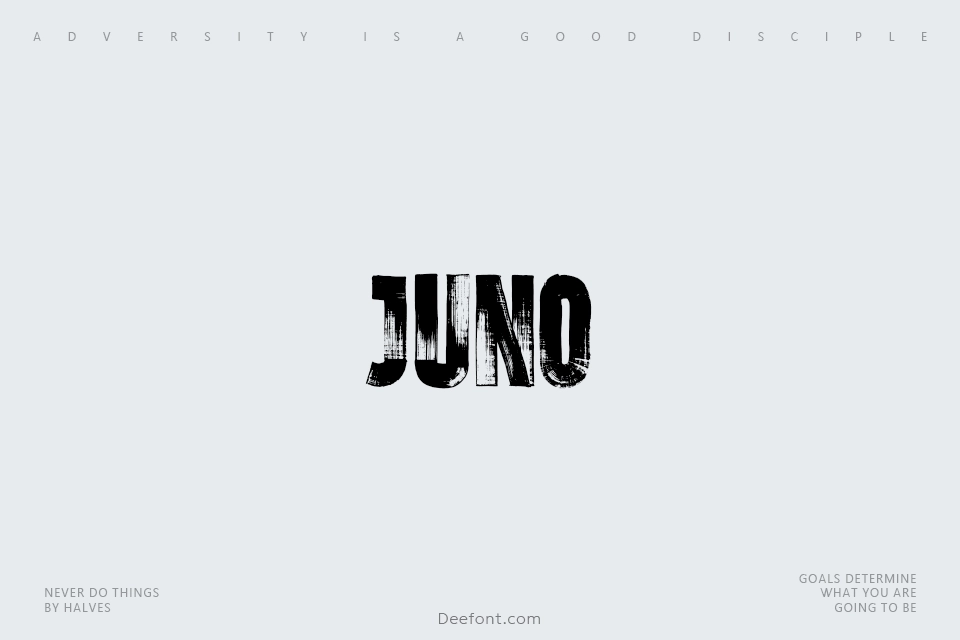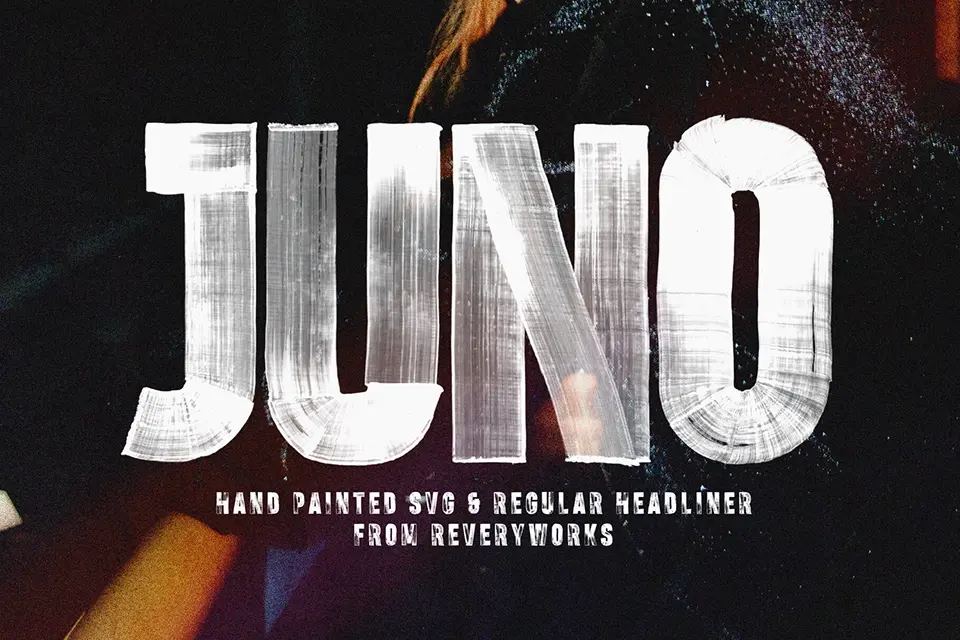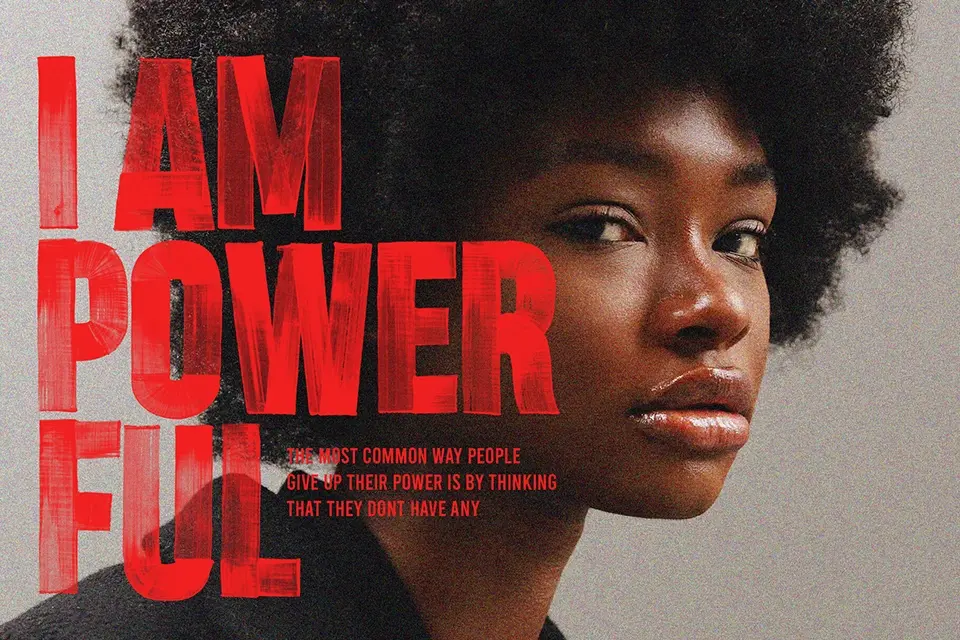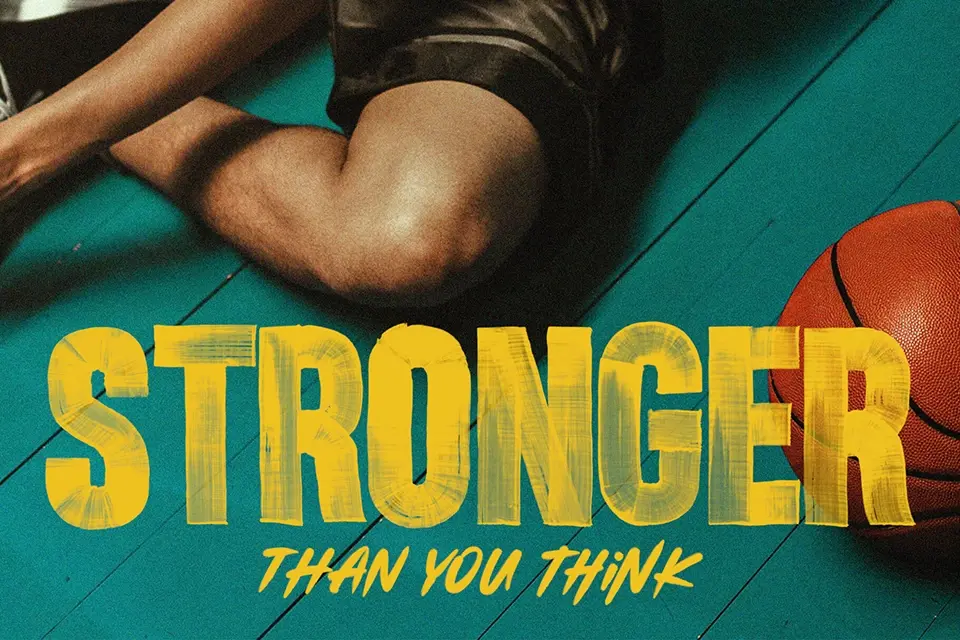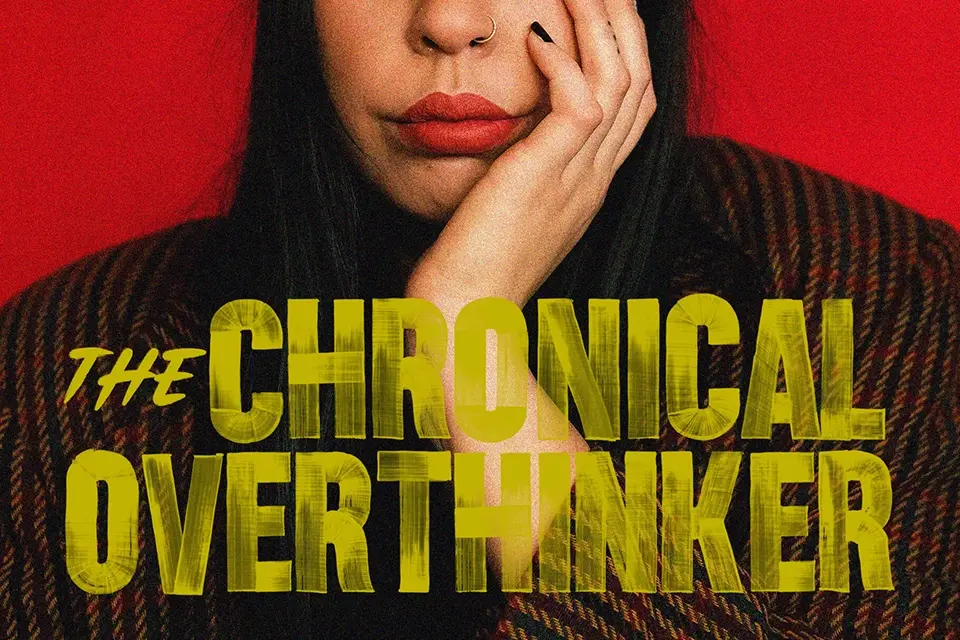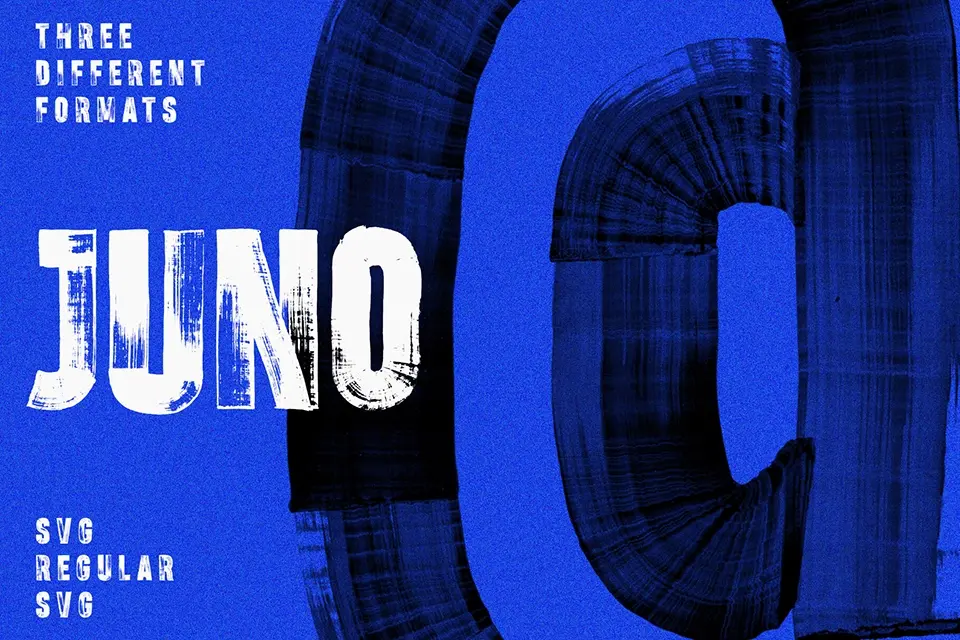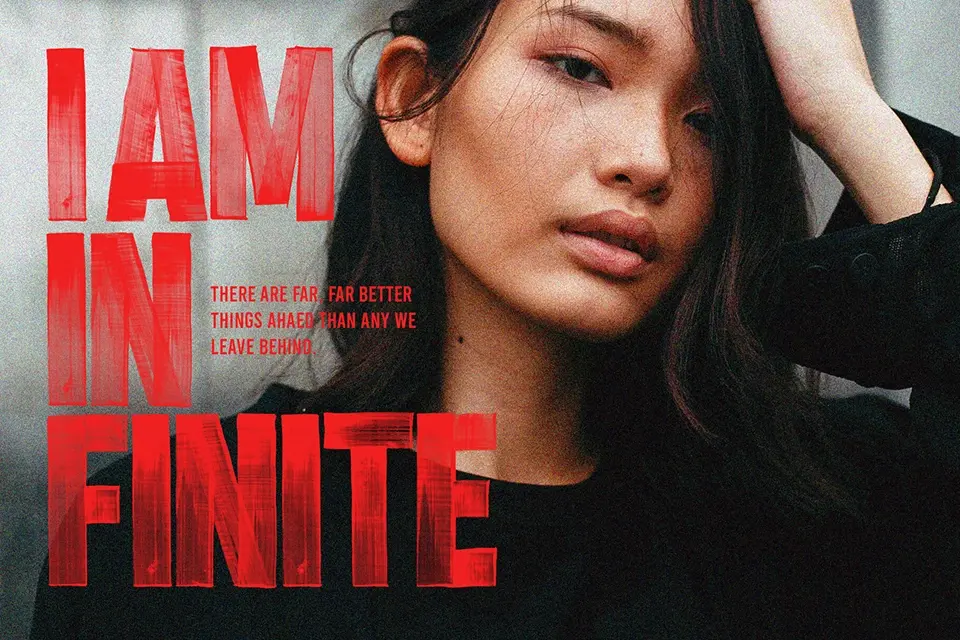
Juno Font
Juno is a bold condensed hand-painted display font crafted by ReveryWorks, featuring individually hand-painted characters with unique textures and distinctive drag marks. Designed for striking headlines and powerful statements, this typeface combines artistic authenticity with modern design impact. The font includes both SVG and regular OTF versions with comprehensive multilingual support, making it perfect for branding, posters, and creative projects requiring personality and visual impact.